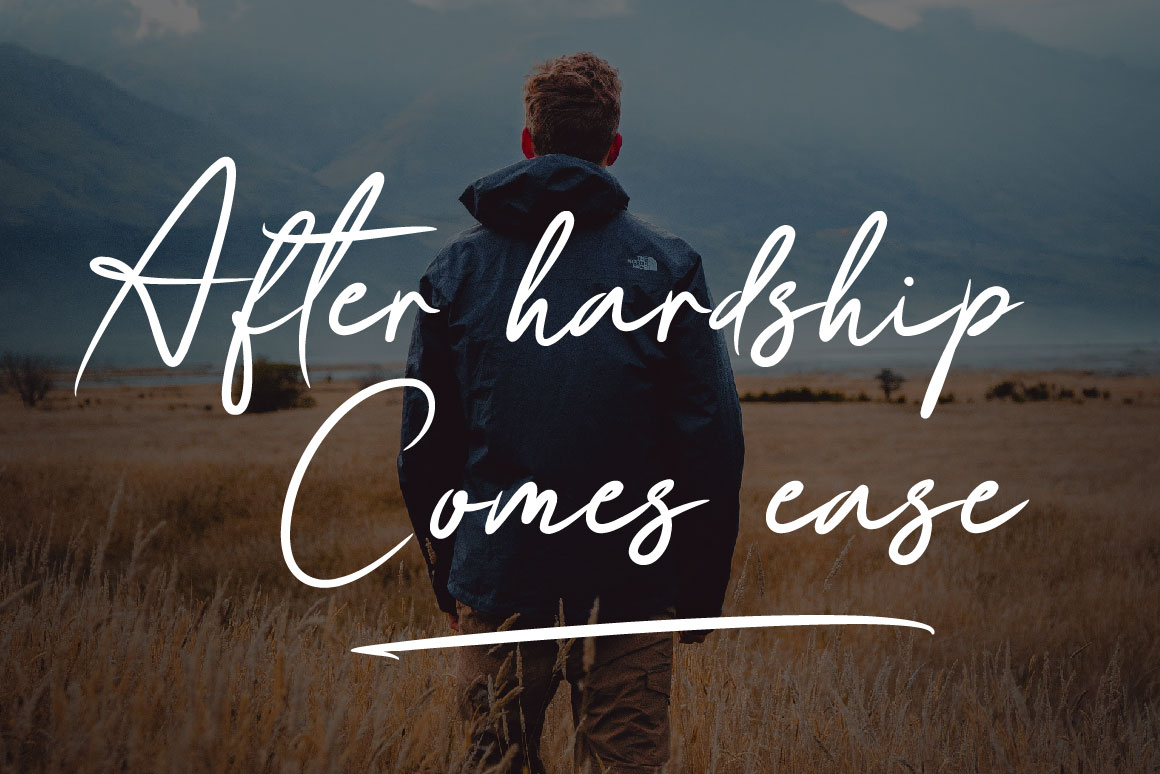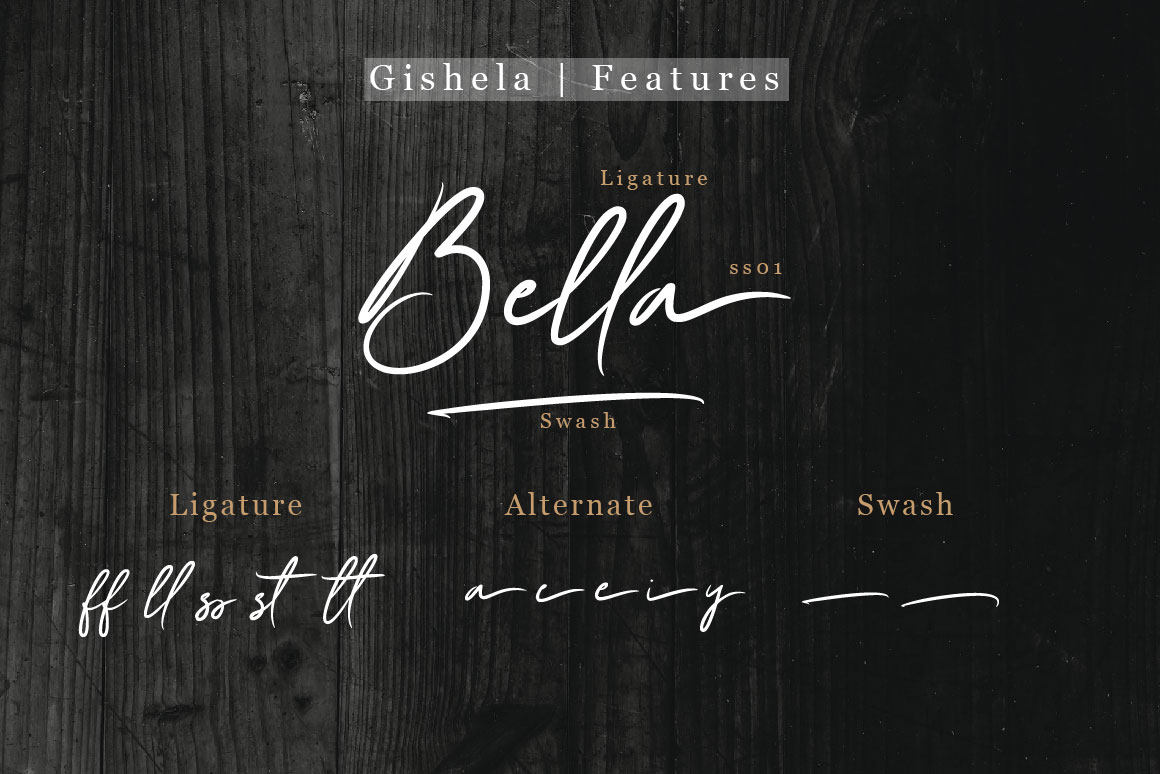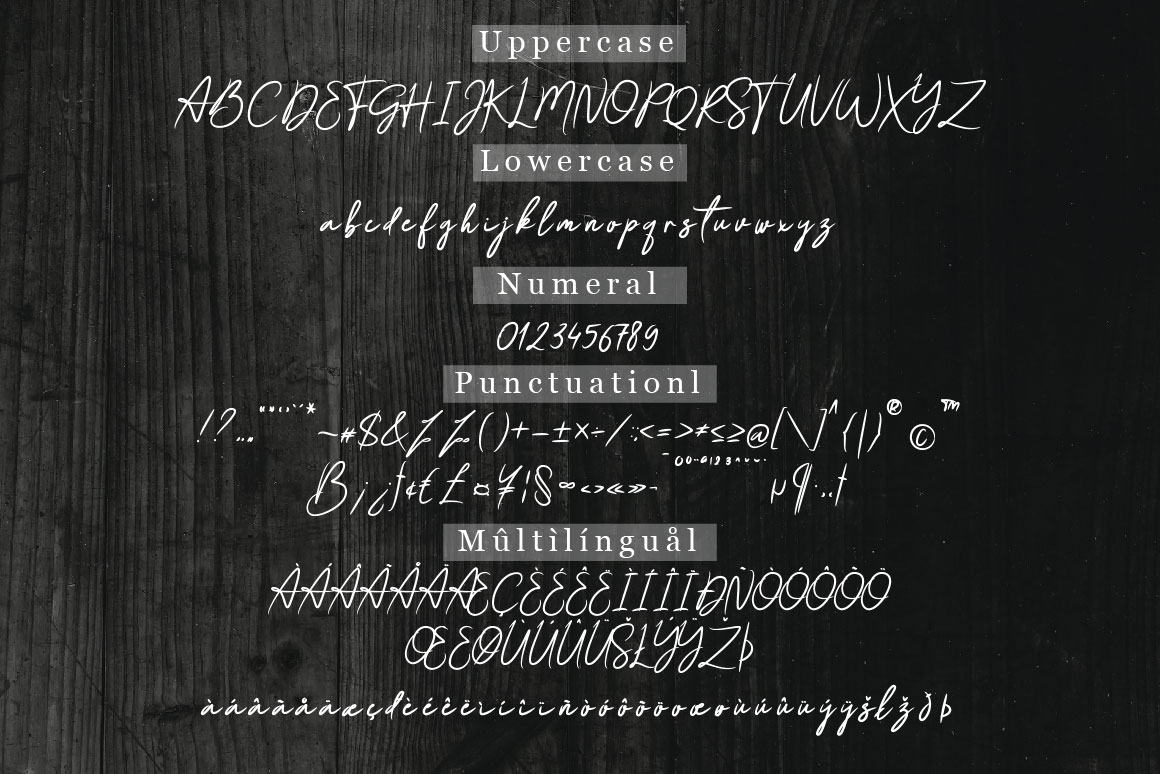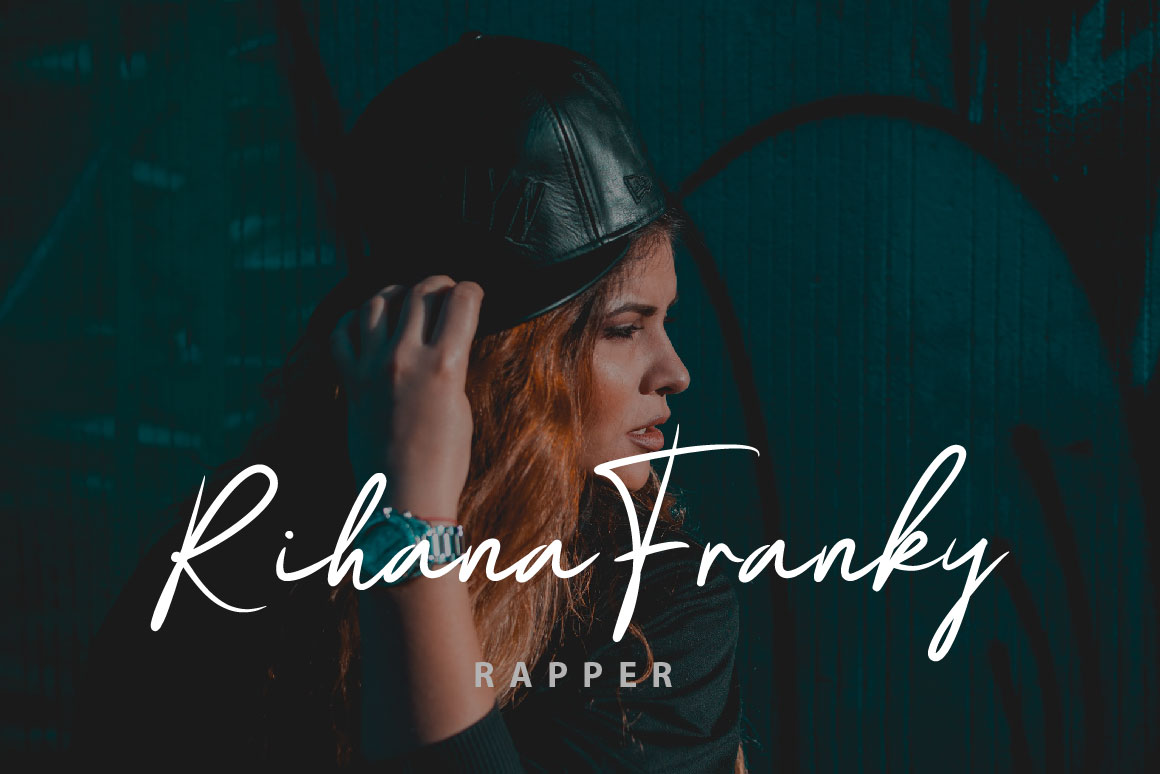
Gishela Font
Gishela Script Font
This is a lovely, thin and delicate script font that exudes elegance and class. This font was particularly crafted for those who need a beautiful and refreshing look to their designs.